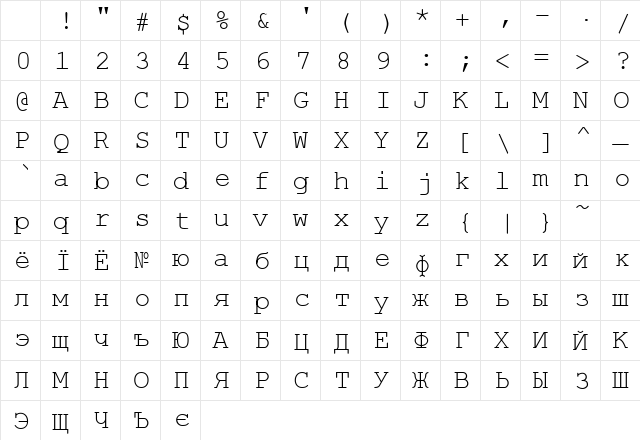
Complete K8 Kurier Fixed Regular glyph index. Displaying only characters natively supported by K8 Kurier Fixed Regular font.
K8 Kurier Fixed is a composed and adaptable typeface that performs quietly and consistently across a wide range of design contexts.